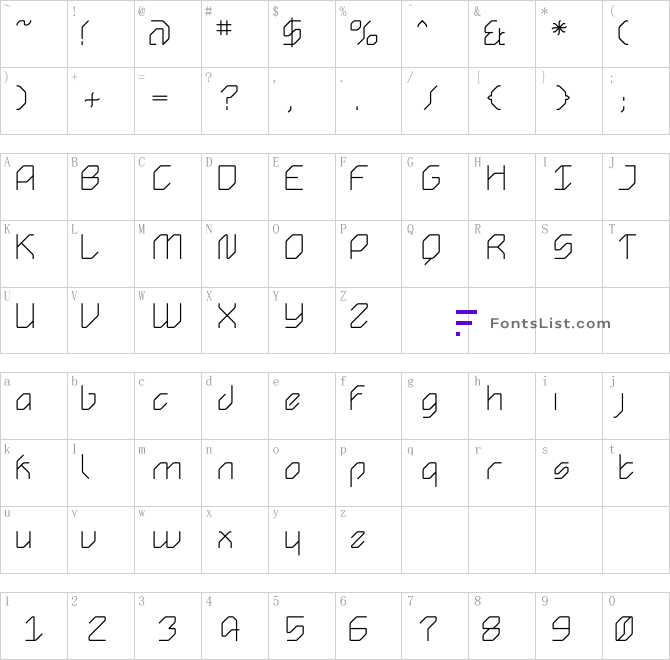
- Font Name:AngolRound Regular
- Full Name:AngolRound Regular
AngolRound-Regular.ttf is a very beautiful artistic font, AngolRound-Regular.ttf is widely used in the design and printing of various books and pictures,AngolRound-Regular.ttf has a strong visual impact,AngolRound-Regular.ttf is a commonly used font in newspapers, magazines and books, and is used in posters, e-commerce Poster design, store design, logo design, font design and other fields.AngolRound-Regular.